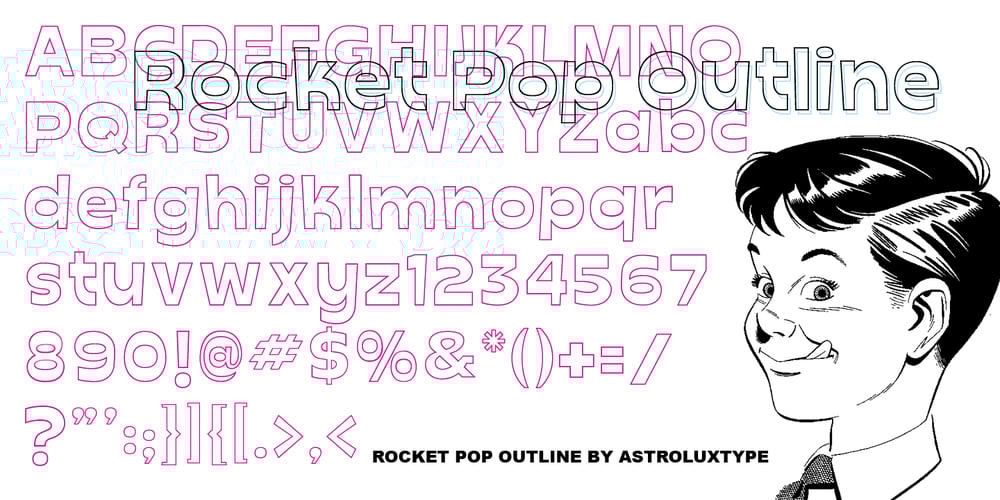
Rocket Pop Outline Font Family was designed by Glenn Parsons and published by astroluxtype. Rocket Pop Outline contains 1 styles and family package options. Rocket Pop Outline and Rocket Pop are influenced by product packaging and cereal box art from the 1960’s and 1970’s. The fonts will work as companions or separate. Best used over 36pt as a headline display face, these fonts will bring a bold playfulness to any project where a vintage or retro style is in the concept. The style reflects the era when things were indeed, mad, where men (and some women) did crazy art for vinyl records, food packaging and kiddie products. This outline font will bring a snap and crackle and a pop to any of your vintage design projects. Watch for the Cerealboxx Set coming soon that will include the astroluxtype fonts, Sugarbang! Koo Koo Puff and Rocket Pop together in one delicious box.